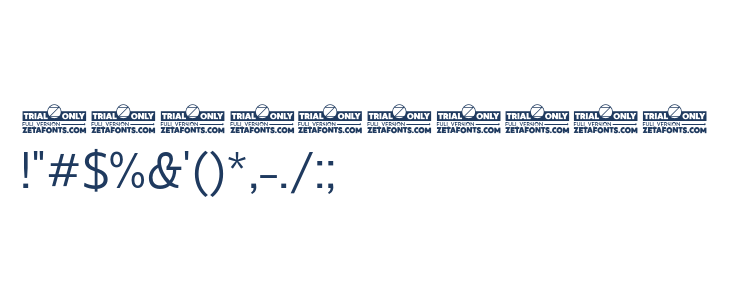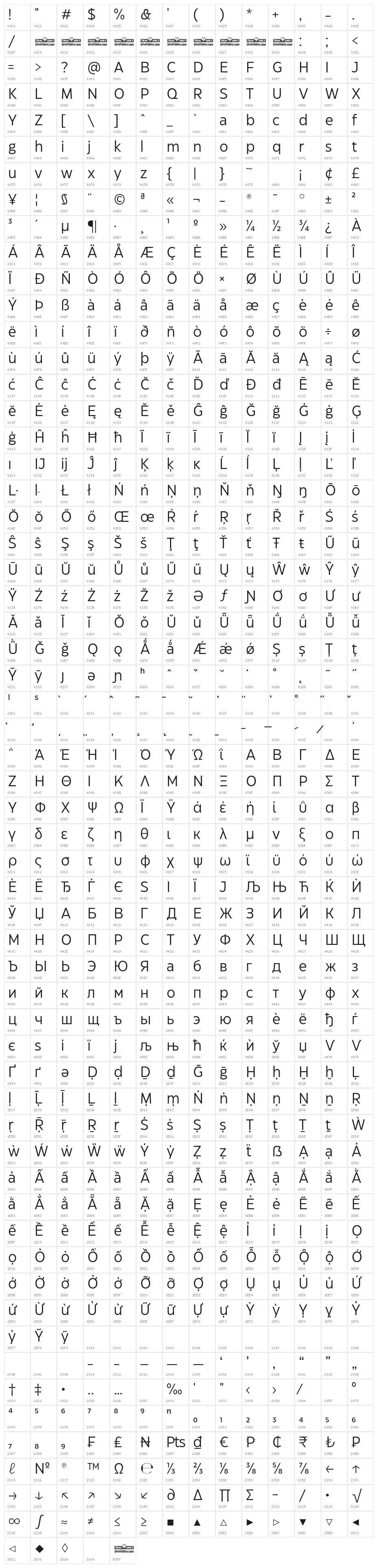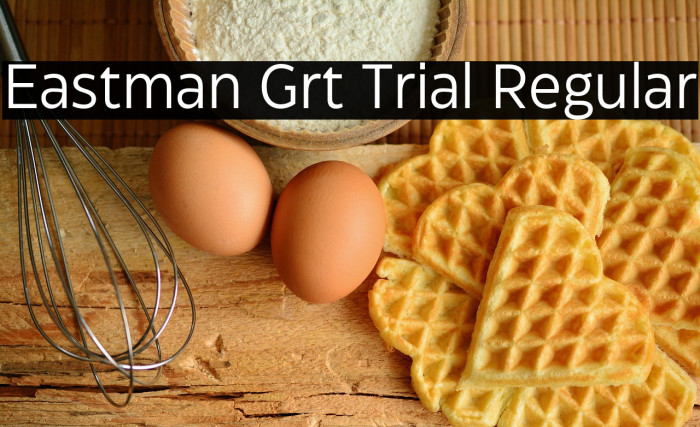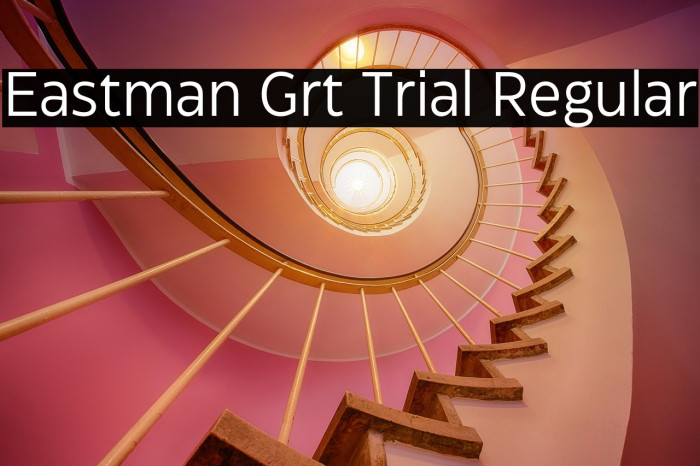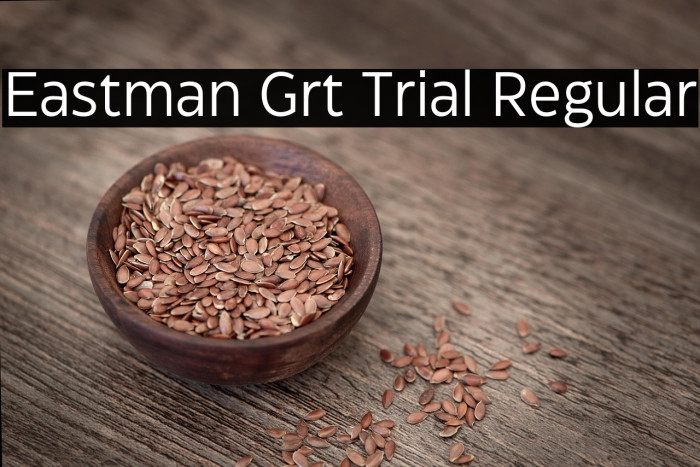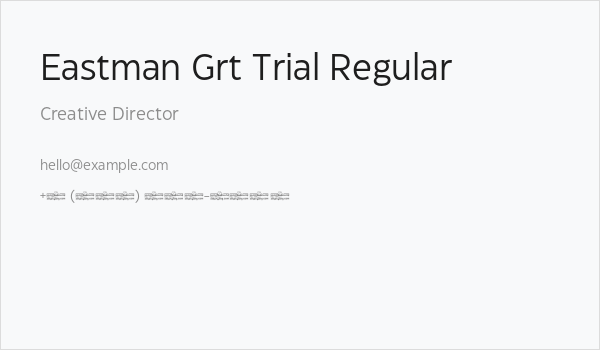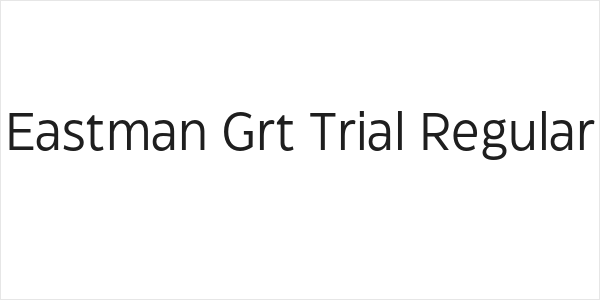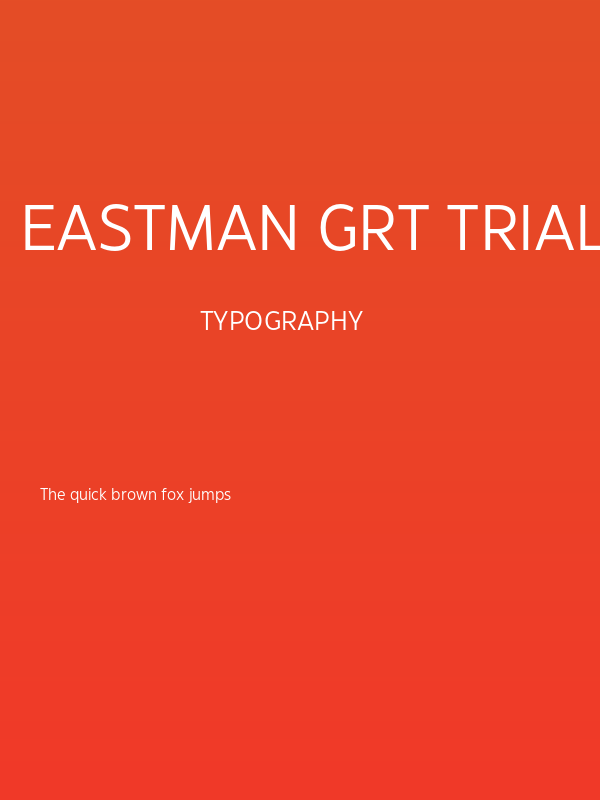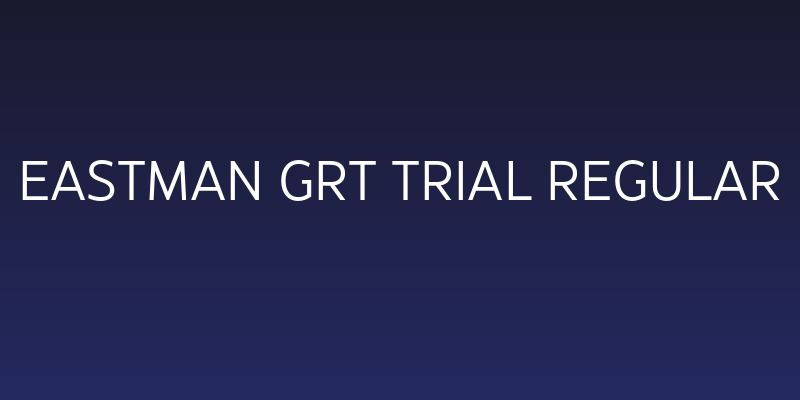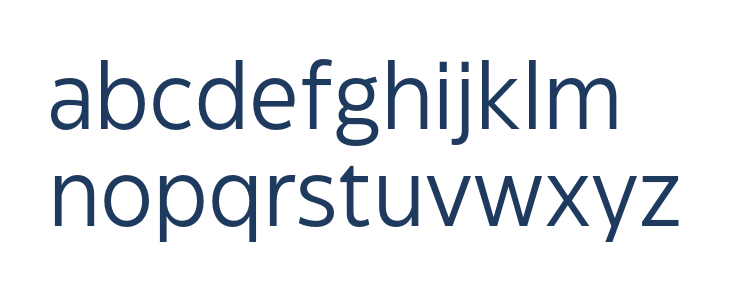
Eastman Grt Trial Regular Font
Eastman Grt Trial Regular Description
This font features a clean and modern sans-serif design, characterized by its geometric shapes and uniform stroke widths. The uppercase letters are bold and assertive, while the lowercase letters maintain a consistent and harmonious appearance. The numerals are straightforward and easy to read, complementing the overall minimalist style. Special characters are well-integrated, maintaining the font's sleek and professional look. This typeface is versatile, suitable for both digital and print media, ensuring readability across various sizes and formats.
Proposed ProjectsIdeal for branding, web design, corporate materials, and editorial layouts.